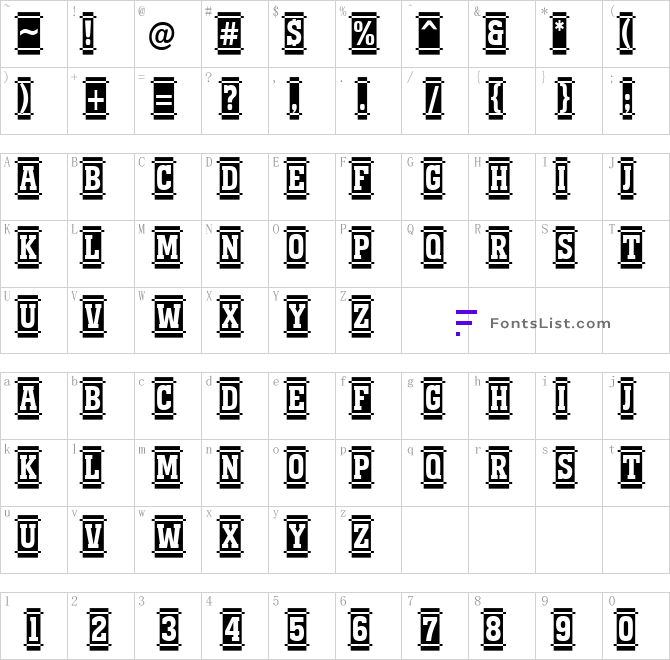
a_MonumentoTtlNrDcCm.ttf is a very beautiful artistic font, a_MonumentoTtlNrDcCm.ttf is widely used in the design and printing of various books and pictures,a_MonumentoTtlNrDcCm.ttf has a strong visual impact,a_MonumentoTtlNrDcCm.ttf is a commonly used font in newspapers, magazines and books, and is used in posters, e-commerce Poster design, store design, logo design, font design and other fields.a_MonumentoTtlNrDcCm.